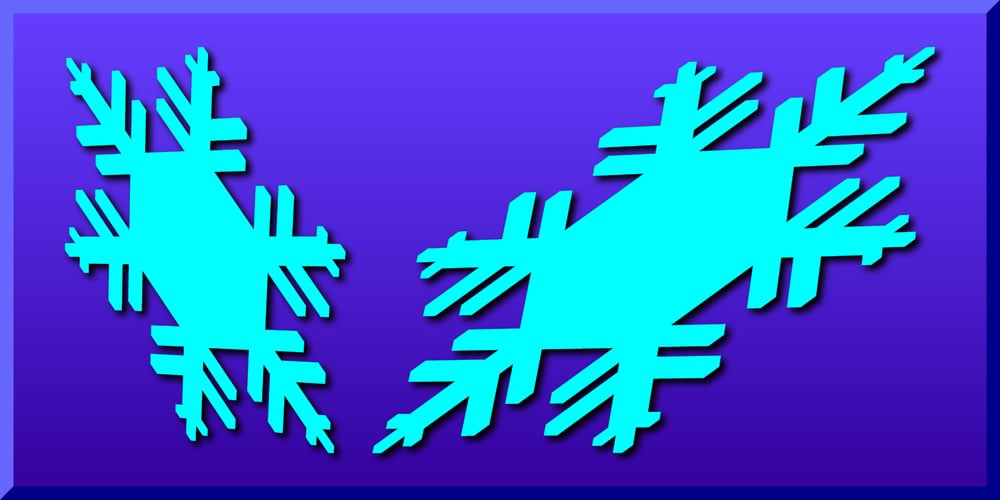
Falling Snowflakes
Falling Snowflakes font
Falling Snowflakes Font Family was designed by Gerald Gallo and published by Gerald Gallo. Falling Snowflakes contains 1 styles and family package options. Forty-six snowflake designs from the Snowflake Assortment font were three-dimensionally rotated to various viewing angles other than perpendicular (which is how they are viewed in the Snowflake Assortment). Holding the modifier keys, Shift, Option, Shift + Option, and typing the same character will access different views of the same leaf. Font contains 180 characters.